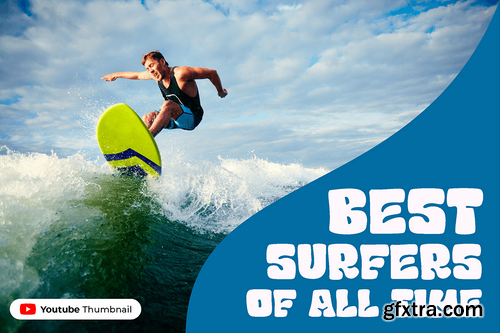
Who said a retro is just for the old people? Chubby and Groovy break the boundaries. It bring happiness and childish attitude in a grooviest way ever. Suit perfectly for retro poster, retro and funk merchandise, movie title, beach restaurant menu, magazine, youtube covers, youtube thumbnails, social media page covers and so on...